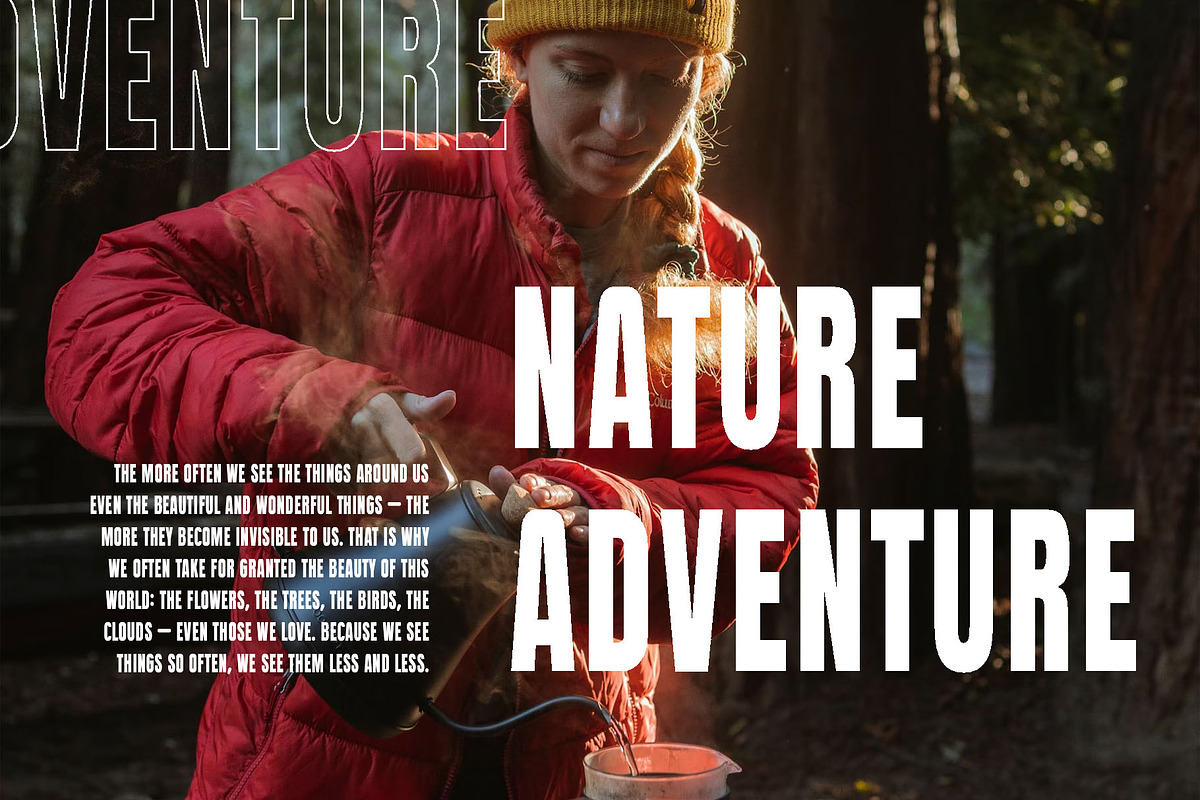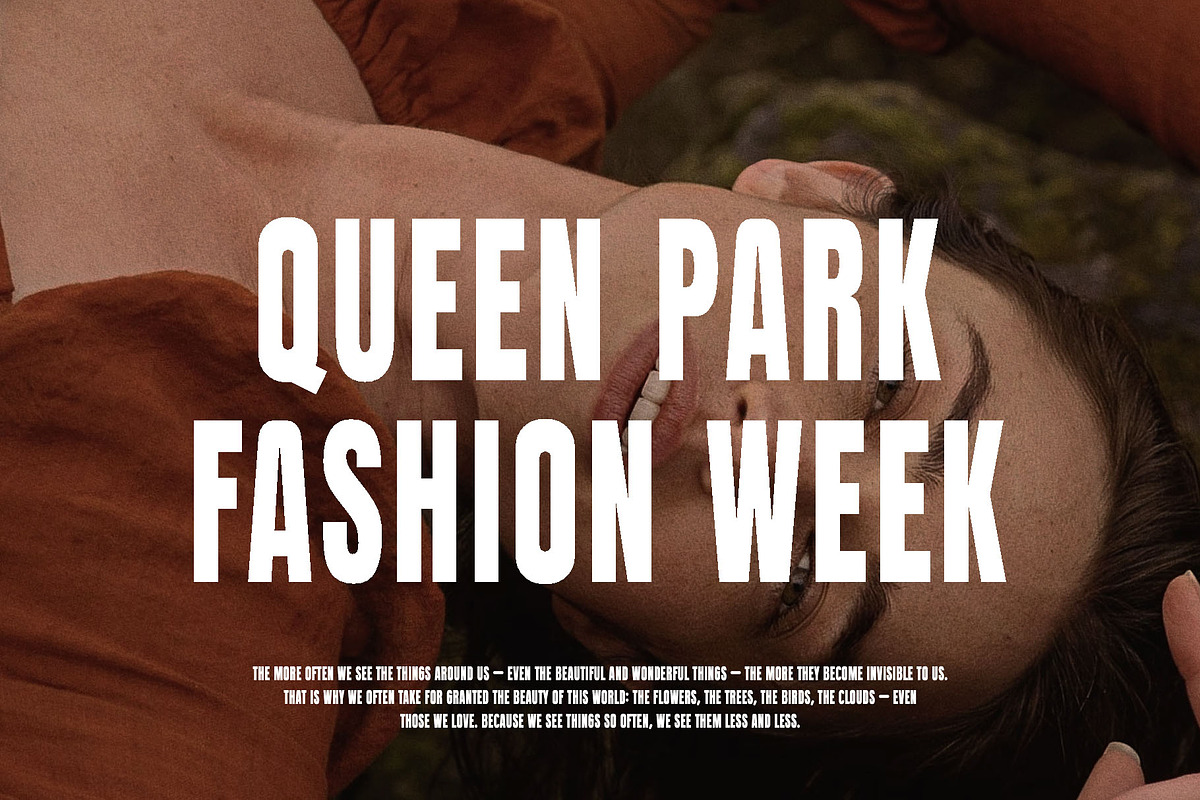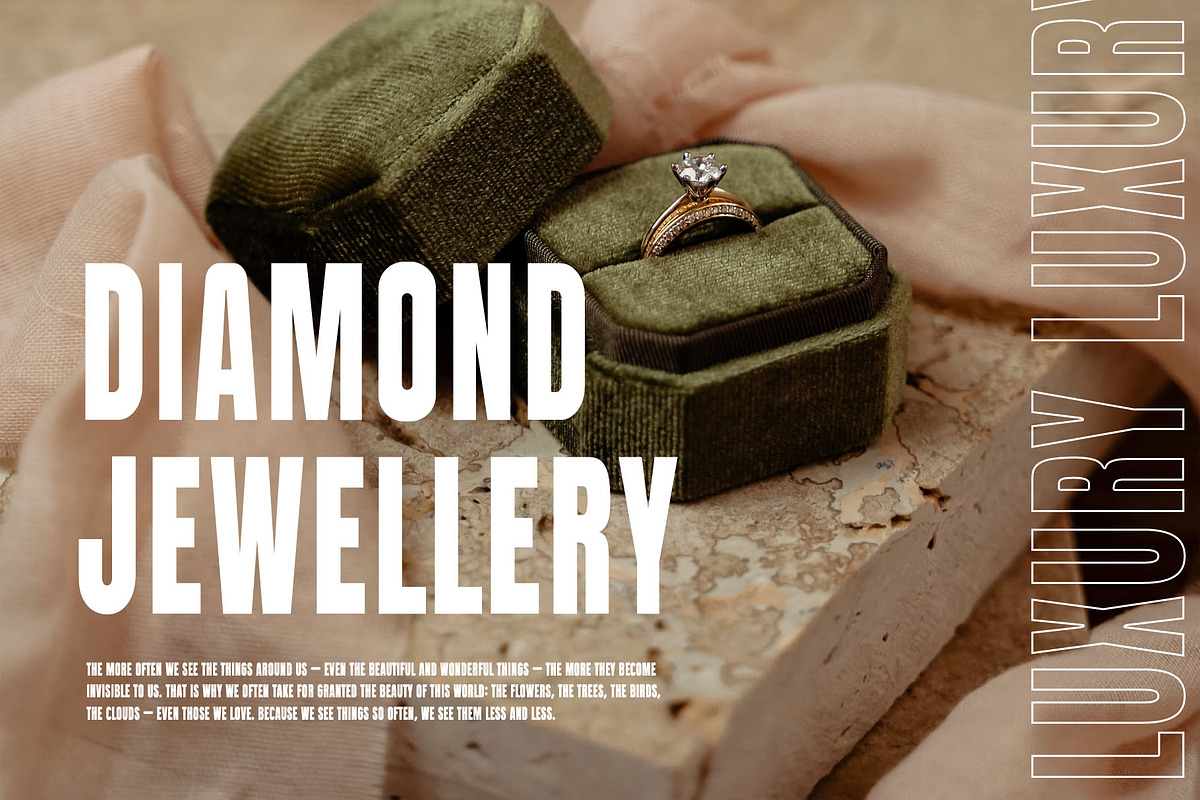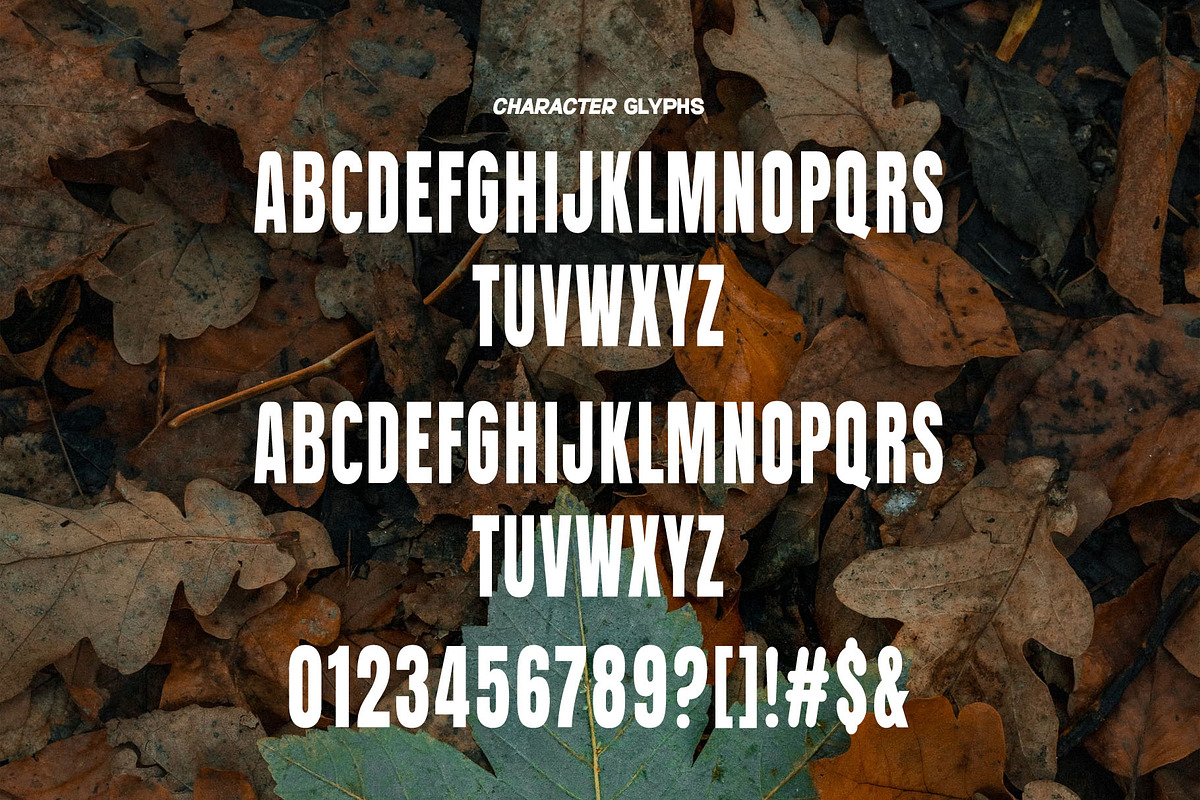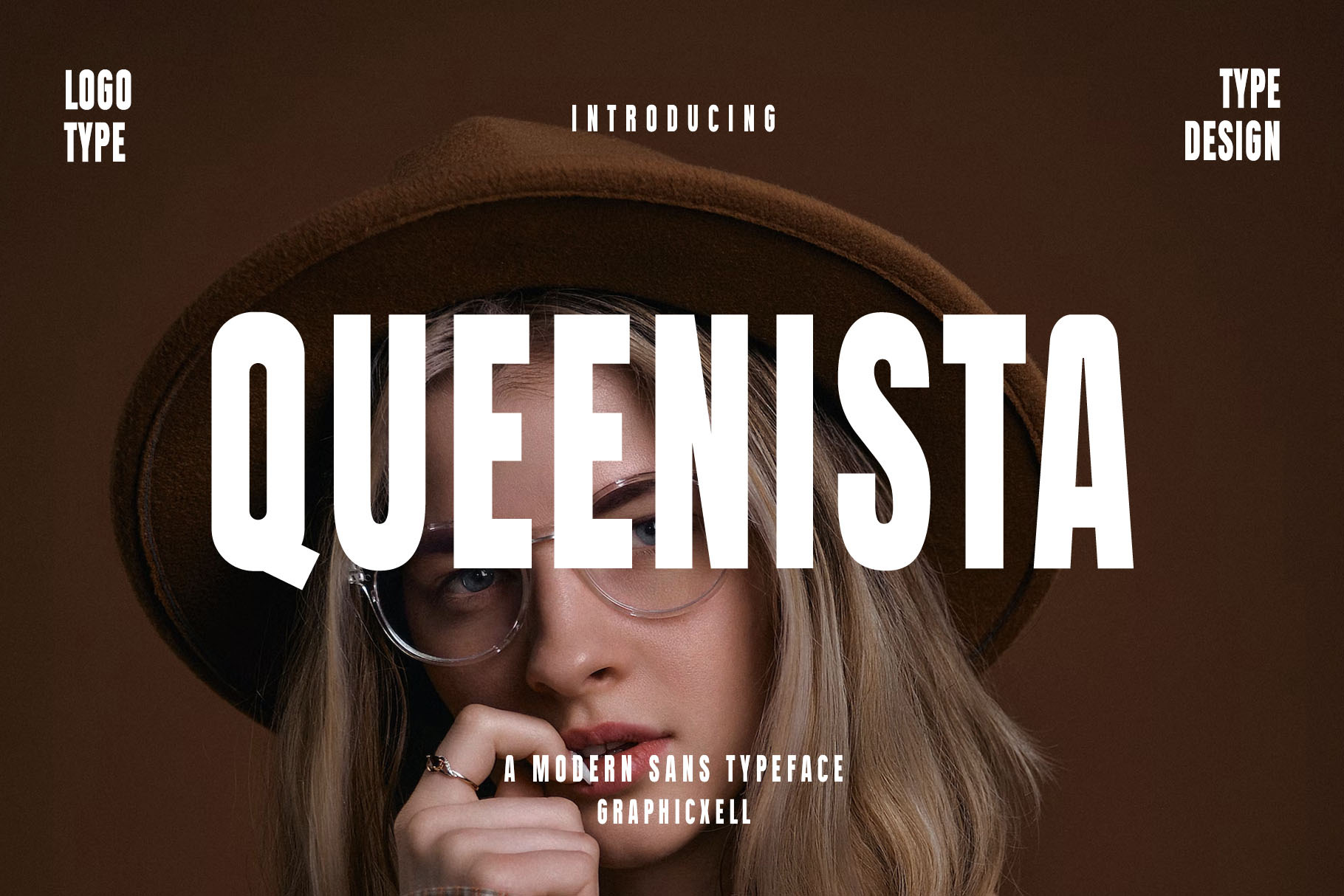
Queenista Sans Serif Font Typeface
Queenista Sans Serif Font Typeface inspired by the famous minimalist logo perfect for the purposes of designing templates, brochures, videos, advertising branding, logos, invitation, layout design, elegant crafting, beauty design and more.